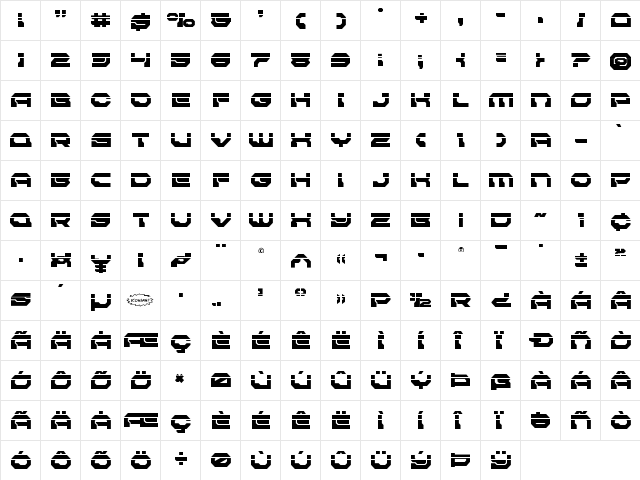
Pulsar Class Solid Laser Regular
Design Context for Pulsar Class Solid Laser Typeface
Pulsar Class Solid Laser is a composed and adaptable typeface that performs quietly and consistently across a wide range of design contexts.